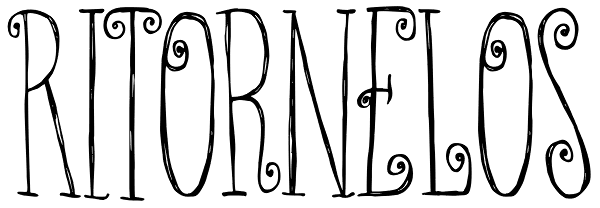
Ritornelos
Ritornelos is a lively hand-drawn typeface, perfect for adding that whimsical touch to your designs. It's a unicase alphabet that contains two variations for each letter (accessible through keyboard's upper/lower keys) and handy embellishments.